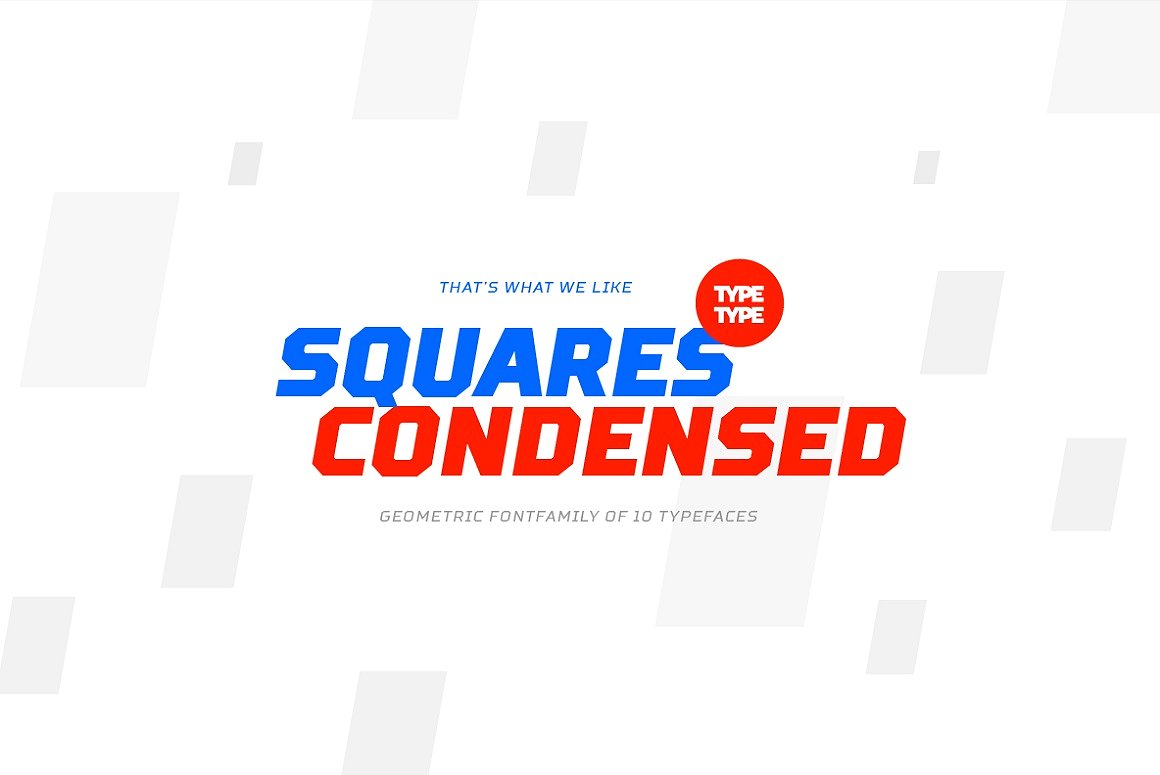
TT Squares Condensed Font
We’ve expanded the TT Squares fontfamily https://crmrkt.com/bj2vV and created a narrow version of the typeface. Just as its older brother, TT Squares Condensed fits perfectly for any engineering, military, and technological theme. The family is ideal for implementation in interior design, packaging design, creation of uniforms with inscriptions, and for logos and headlines. Fonts belonging to the TT Squares fontfamily look manly and have a strong character that instantly tunes in the spectators and makes them perceive the information seriously.